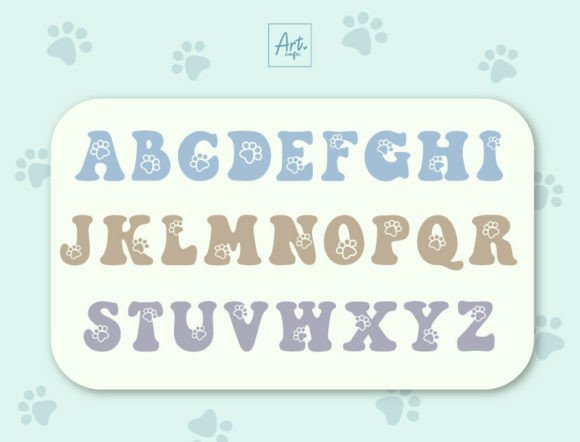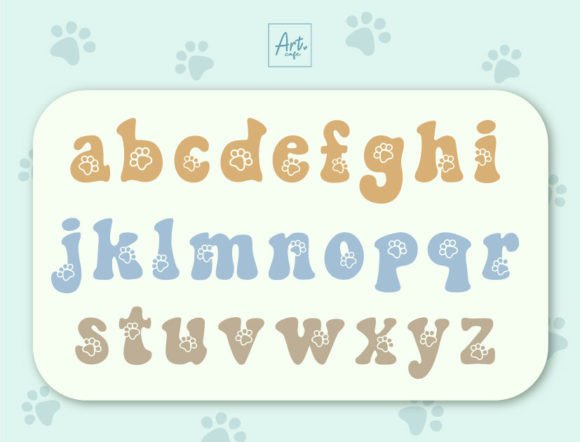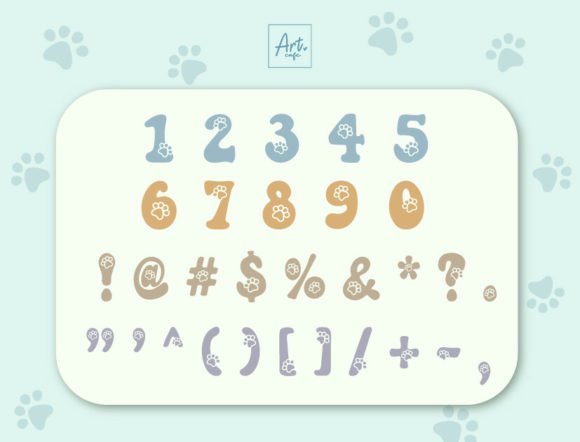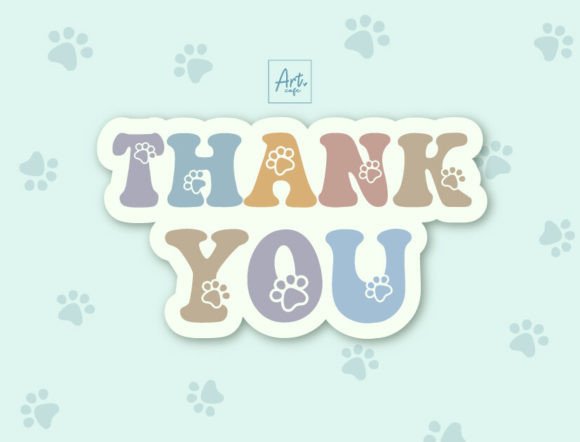
Unleash the Groovy Dog Font and Bring Joy to Your Designs
Who hasn’t had a moment where they stumble upon the perfect font, and suddenly their creative juices start flowing? For pet lovers and designers alike, discovering the Groovy Dog Font is just such a moment. This enchanting typeface is a perfect blend of nostalgia and adorability, featuring charming prints of dog and cat paws that will melt your heart.
With the Groovy Dog Font, you can add a playful, vintage flair to your typography needs, making it a valuable asset for designers who want to give their projects a unique touch. Whether you’re creating a pet-themed design or simply want to add a dash of whimsy to your work, this font is sure to bring a smile to your face and delight your audience.
Groovy Dog Font Key Features
- Font Family: Groovy Dog Font is a unique, hand-drawn font family designed to evoke a fun, playful feel.
- Character Set: Includes a comprehensive set of characters, including uppercase and lowercase letters, numbers, punctuation, and special characters.
- Unique Characteristics: Features a distinctive, hand-drawn style with exaggerated lines and curves, making it perfect for adding a touch of whimsy to designs.
Groovy Dog Font Review
I recently had the chance to work with the Groovy Dog Font, and I must say, it’s a unique and interesting addition to any design project. ✨ Here are a few things that stood out to me:
- Highly customizable: The font offers a range of styles and weights, making it easy to find the perfect fit for your design.
- Fun and playful vibe: The Groovy Dog Font is perfect for projects that need a lighthearted and carefree feel.
- Works well in digital and print formats: I was impressed with how well the font held up in both digital and print formats, making it a versatile choice for designers.
However, as with any font, there are some limitations to consider. ⚠️ Here are a few things to keep in mind:
- May not be suitable for formal or professional projects: The font’s playful vibe may not be the best fit for projects that require a more serious tone.
- Some characters may not be fully compatible: I encountered a few instances where certain characters didn’t display properly, which was a bit frustrating.
Overall, I think the Groovy Dog Font is a great choice for designers who are looking for a fun and unique addition to their projects. While it may not be the best fit for every project, it’s definitely worth considering for those that need a playful and eye-catching font.
Tips for Getting the Most Out of Groovy Dog Font
Here are some tips for getting the most out of Groovy Dog Font:
- Use it for playful and creative projects, such as children’s books or pet-related designs.
- Combine it with other fun and quirky fonts for a unique look.
- Experiment with different font sizes and colors to add emphasis and visual interest.
Some common use cases for Groovy Dog Font include:
- Children’s book covers and illustrations.